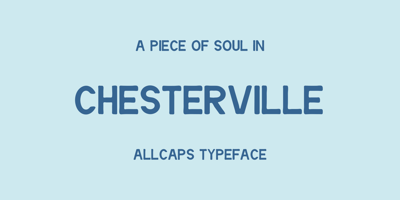
Chesterville Font is a charming and versatile typeface, perfect for designs that aim to convey a sense of classic elegance, a friendly appeal, or a warm, vintage aesthetic. Its balanced letterforms, often featuring subtle serifs or humanist sans-serif qualities, give it an inviting and approachable feel, making it an excellent choice for boutique branding, café menus, artisanal product labels, and wedding invitations with a rustic touch. Imagine it gracing the signage of a local bookstore, providing a comforting feel for a small-town bakery's website, or adding a charming touch to handmade craft fair banners. This font is also superb for personal blogs, event announcements with a cozy vibe, and any project where authenticity, warmth, and a visually appealing identity are key. It doesn't just display text; it extends a friendly welcome, making your message feel genuinely inviting.
What Makes Chesterville Font So Exciting?
What makes Chesterville Font so exciting is its remarkable ability to blend timeless charm with a contemporary readability. It possesses a distinctive character that feels both established and approachable, creating a unique visual appeal that stands out from more rigid or overtly modern typefaces. This characteristic makes it a fantastic choice for designers looking to infuse their projects with a sense of authenticity, warmth, and a memorable atmosphere. It’s a font that speaks with a clear, friendly voice, making it ideal for brands and content creators who want to convey reliability, comfort, and a sophisticated, inviting aesthetic. Its balanced appeal can make any design feel more cohesive and effortlessly charming.
Usage Examples for Chesterville Font
Chesterville Font excels in various applications where a warm, classic, and approachable aesthetic is desired. Consider its use in:
• Retail Branding: Logos, signage, and packaging for local shops, bakeries, and craft stores.
• Hospitality: Menus, decor, and branding for cafes, restaurants, and inns.
• Event Stationery: Invitations, programs, and signage for weddings, anniversaries, and community gatherings.
• Editorial & Publishing: Titles, covers, and internal layouts for lifestyle magazines, cookbooks, or nostalgic stories.
• Personal Branding: Blogs, portfolios, and social media graphics that convey a friendly, authentic personality.
Chesterville Font Family and Weights
The Chesterville Font family typically offers a comprehensive range of weights and styles to provide extensive design flexibility and allow for nuanced typographic expressions. While the exact variations can differ based on the specific design, you can generally expect to find key members that support diverse layout needs, such as:
• Chesterville Thin
• Chesterville Light
• Chesterville Regular
• Chesterville Medium
• Chesterville SemiBold
• Chesterville Bold
• Chesterville ExtraBold
• Chesterville Black
• Chesterville Italic (for most, if not all, weights)
• Chesterville Condensed (if available, for space-saving applications)
• Chesterville Display (if a specific version optimized for large sizes exists)
These various weights and styles empower designers to create effective visual hierarchies, emphasize important information, and maintain a consistent, polished, and contemporary classic look throughout all digital and print assets. The opportunity to utilize Chesterville Font Free Download is an excellent way to experience its versatile elegance and modern appeal for your personal projects.